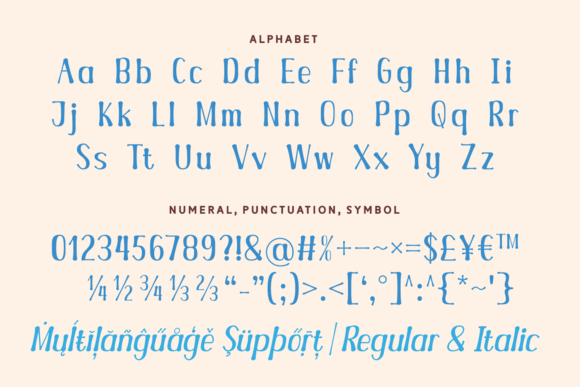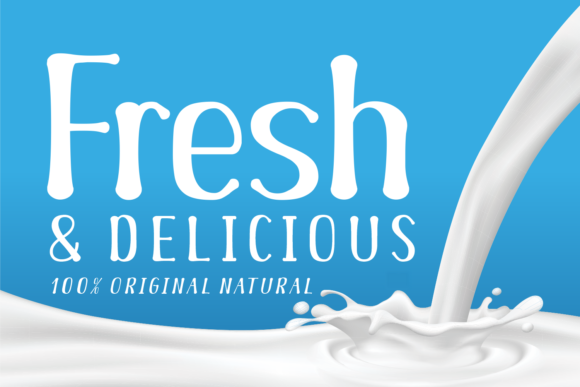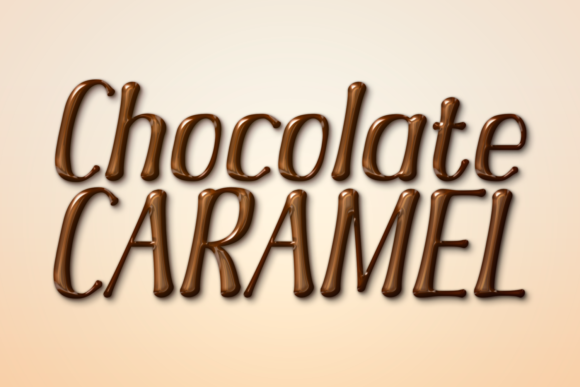
Introduction to Rocha Milk Font
Have you ever stumbled upon a font that perfectly captures the essence of your creative vision? For designers, finding the right typeface can be the key to unlocking a project’s full potential. I recall the moment I discovered the Rocha Milk Font, and it was love at first sight. The playful yet rough edge of this high-quality font immediately resonated with me, and I knew I had to incorporate it into my next creative project.
As a valuable design resource, the Rocha Milk Font offers a unique combination of classic and modern elements, making it an ideal choice for a wide range of applications. With its transparent background and free download option, it’s easy to see why this font has become a favorite among designers. Whether you’re working on a design project or simply looking to add a personal touch to your crafting endeavors, the Rocha Milk Font is sure to inspire your creativity.
Key Features of Rocha Milk Font
- High-quality, free font suitable for creative projects, with a transparent background design.
- Includes a wide range of characters, including uppercase and lowercase letters, numbers, and special symbols.
- Designed with a unique, modern aesthetic, making it an excellent design resource for various creative projects.
- Resolution: High-resolution font, suitable for print and digital use, with a clear and legible appearance at various sizes.
Honest Review: Rocha Milk Font
I recently had the chance to work with the Rocha Milk Font, and I must say it’s a great addition to any design resource library. This font is perfect for creative projects that require a touch of sophistication and elegance.
- High-quality typography: The font is incredibly detailed and smooth, making it perfect for both digital and print designs.
- Transparent background: This allows designers to easily work with the font on any background, without worrying about it getting lost or distracting from the rest of the design.
✨ One of the things that stood out to me was the versatility of the font. It’s perfect for use in logos, headings, and even body text, making it a great all-around design resource.
- ⚠️ Limited character set: While the font is free, it does come with some limitations, including a limited character set. This may not be ideal for designers who need to use the font for longer blocks of text.
- ⚠️ Not ideal for bold typography: While the font is great for elegant designs, it may not be the best choice for bold or dramatic typography, as it can get lost in larger font sizes.
Overall, I’m really impressed with the Rocha Milk Font. While it does have some limitations, it’s a great addition to any design resource library, and the free download makes it a great value for designers on a budget.
Use the Rocha Milk Font in combination with other design elements to create a cohesive and visually appealing design. Experiment with different font sizes, colors, and arrangements to get the most out of this design resource.
The Rocha Milk Font is perfect for creating invitations, posters, business cards, and other marketing materials. Its high quality and transparent background make it ideal for use in creative projects, such as graphic design, digital art, and typography.